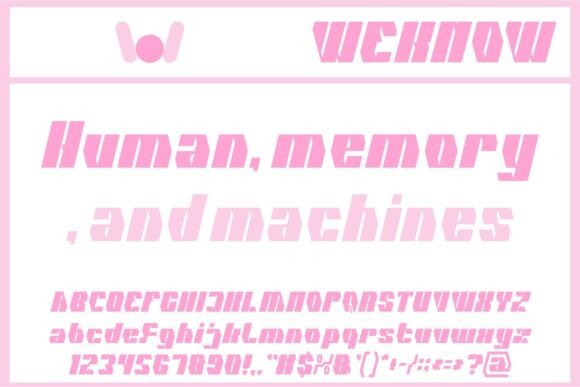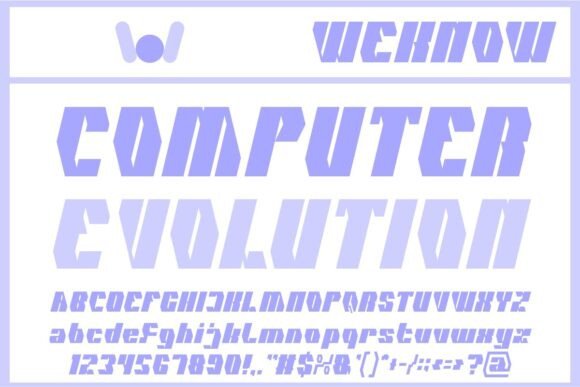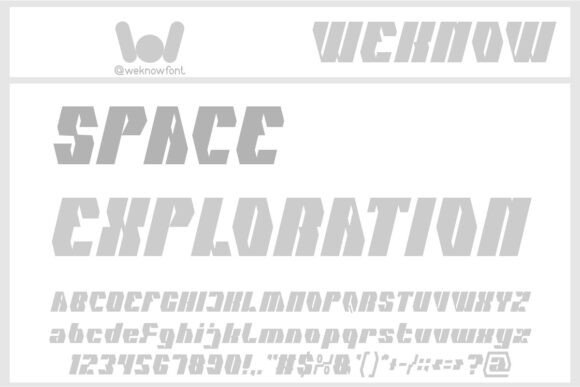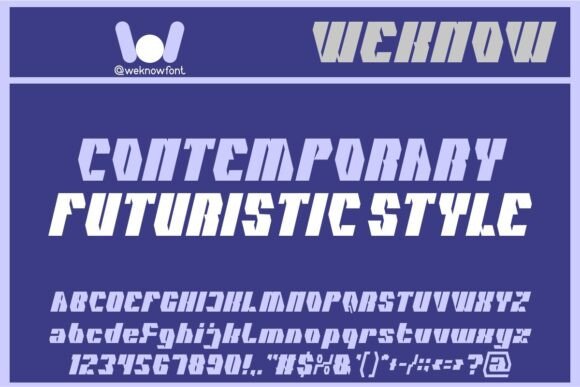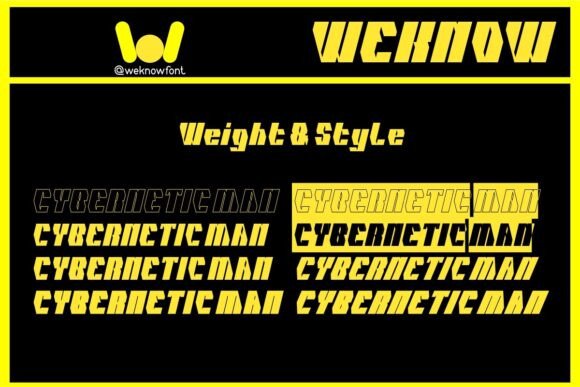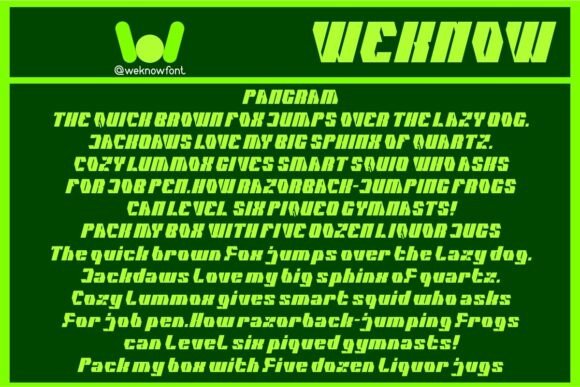
Introducing Cybernetic Man: The Futuristic Font for the Digital Age
Immerse yourself in the cutting-edge interface of the future with Cybernetic Man, a techno-sci-fi-inspired font that embodies the spirit of advanced technology and cybernetic marvels. This innovative typeface is your gateway to the metaverse, designed to convey a sense of futurism and forward-thinking design. With its bold and dynamic aesthetic, Cybernetic Man is the perfect choice for designers and crafters looking to elevate their brand and create a lasting impression.
The Embodiment of Futurism
Cybernetic Man is more than just a font – it’s an experience. Its design is inspired by the latest advancements in technology and cybernetics, making it the perfect choice for projects that require a sense of innovation and progress. Whether you’re working on a music site, pitching a new game, or creating compelling book covers, Cybernetic Man is the ideal choice for conveying bold headlines, constructing dynamic logos, and crafting distinctive corporate identities.
Endless Possibilities
The versatility of Cybernetic Man knows no bounds. Its robust aesthetic lends well to a wide range of applications, including:
- Music and Gaming: Add a touch of futurism to your music site or game with Cybernetic Man’s bold and dynamic design.
- Book Covers and Posters: Create eye-catching book covers and posters that demand attention with Cybernetic Man’s cutting-edge aesthetic.
- Social Media: Elevate your YouTube and Instagram content with Cybernetic Man’s digital and high-tech appeal.
- Apparel and Fashion: Make a statement with Cybernetic Man’s bold and futuristic design on apparel, t-shirts, and other fashion items.
- Comics and Cartoons: Add a touch of innovation and excitement to your comics and cartoons with Cybernetic Man’s dynamic design.
Key Features of Cybernetic Man
Cybernetic Man boasts a range of key features that make it the perfect choice for designers and crafters:
- Unique and Futuristic Design: Cybernetic Man’s design is inspired by the latest advancements in technology and cybernetics, making it truly unique and futuristic.
- Bold and Dynamic Aesthetic: Cybernetic Man’s bold and dynamic aesthetic is perfect for conveying bold headlines, constructing dynamic logos, and crafting distinctive corporate identities.
- High-Tech Appeal: Cybernetic Man’s digital and high-tech appeal makes it perfect for projects that require a sense of innovation and progress.
- Versatile: Cybernetic Man is versatile and can be used for a wide range of applications, from music and gaming to apparel and fashion.
Why Choose Cybernetic Man?
In today’s fast-paced digital landscape, it’s essential to stay ahead of the curve. With Cybernetic Man, you can:
- Elevate Your Brand: Cybernetic Man’s bold and futuristic design is sure to elevate your brand and make a lasting impression.
- Convey Innovation and Progress: Cybernetic Man’s design conveys a sense of innovation and progress, making it perfect for projects that require a sense of forward-thinking.
- Stand Out from the Crowd: Cybernetic Man’s unique and futuristic design ensures that your project stands out from the crowd and demands attention.
In conclusion, Cybernetic Man is the ultimate font for designers and crafters looking to elevate their brand and create a lasting impression. Its unique and futuristic design, bold and dynamic aesthetic, and high-tech appeal make it the perfect choice for a wide range of applications. Whether you’re working on a music site, pitching a new game, or creating compelling book covers, Cybernetic Man is the ideal choice for conveying bold headlines, constructing dynamic logos, and crafting distinctive corporate identities. So why wait? Dabble in the future of design with the captivating and advanced Cybernetic Man font.